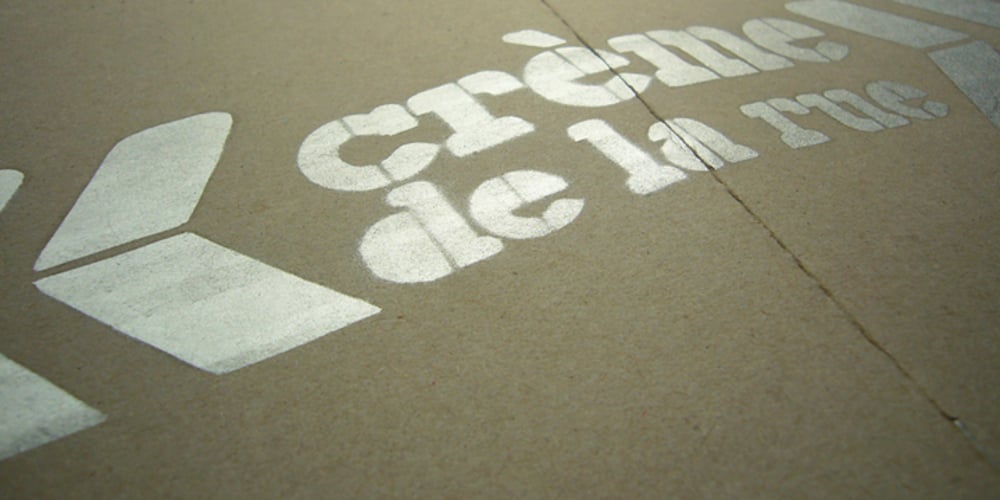
Crème de la Rue Font Family was designed by Benedict Herr and published by Benedict Herr. Crème de la Rue contains 1 styles and family package options. Crème de la Rue is an urban-art-influenced stencil font. Cut outs and spraying or painting in huge sizes are possible as well as display use for headlines or short paragraphs in mid and large scale. The Stencil cut is available with 246 glyphs, numbers, accents, arrows and ligatures.